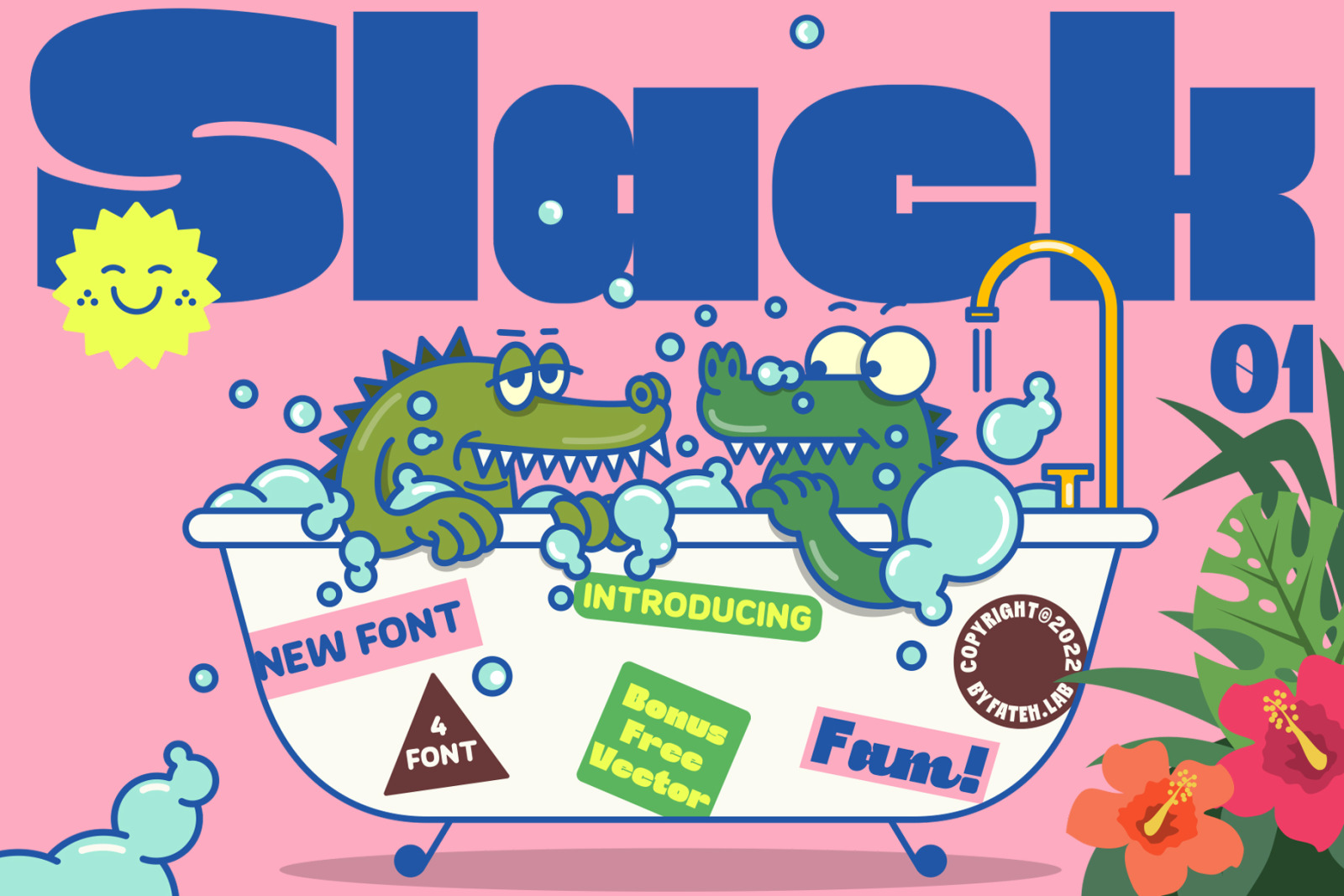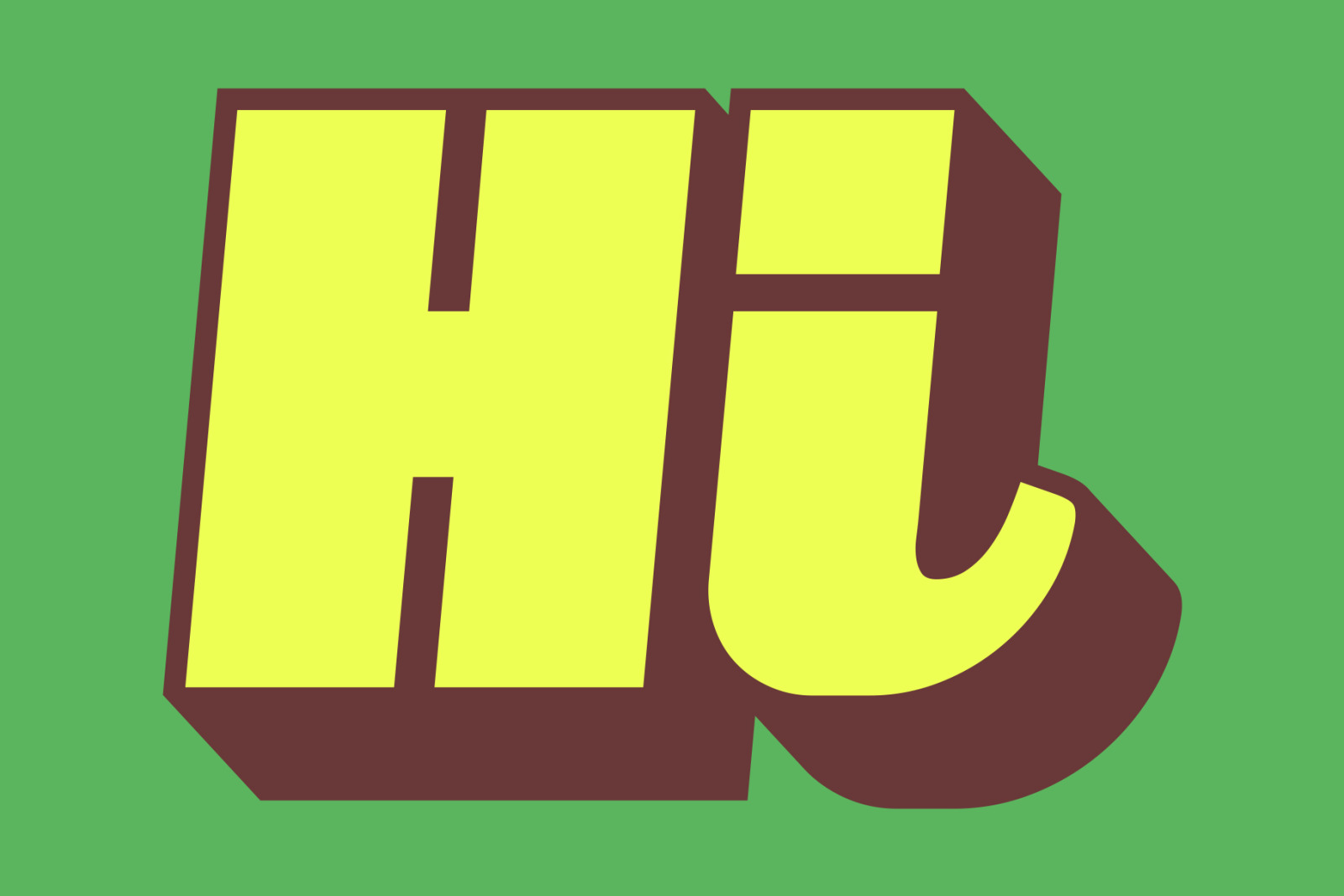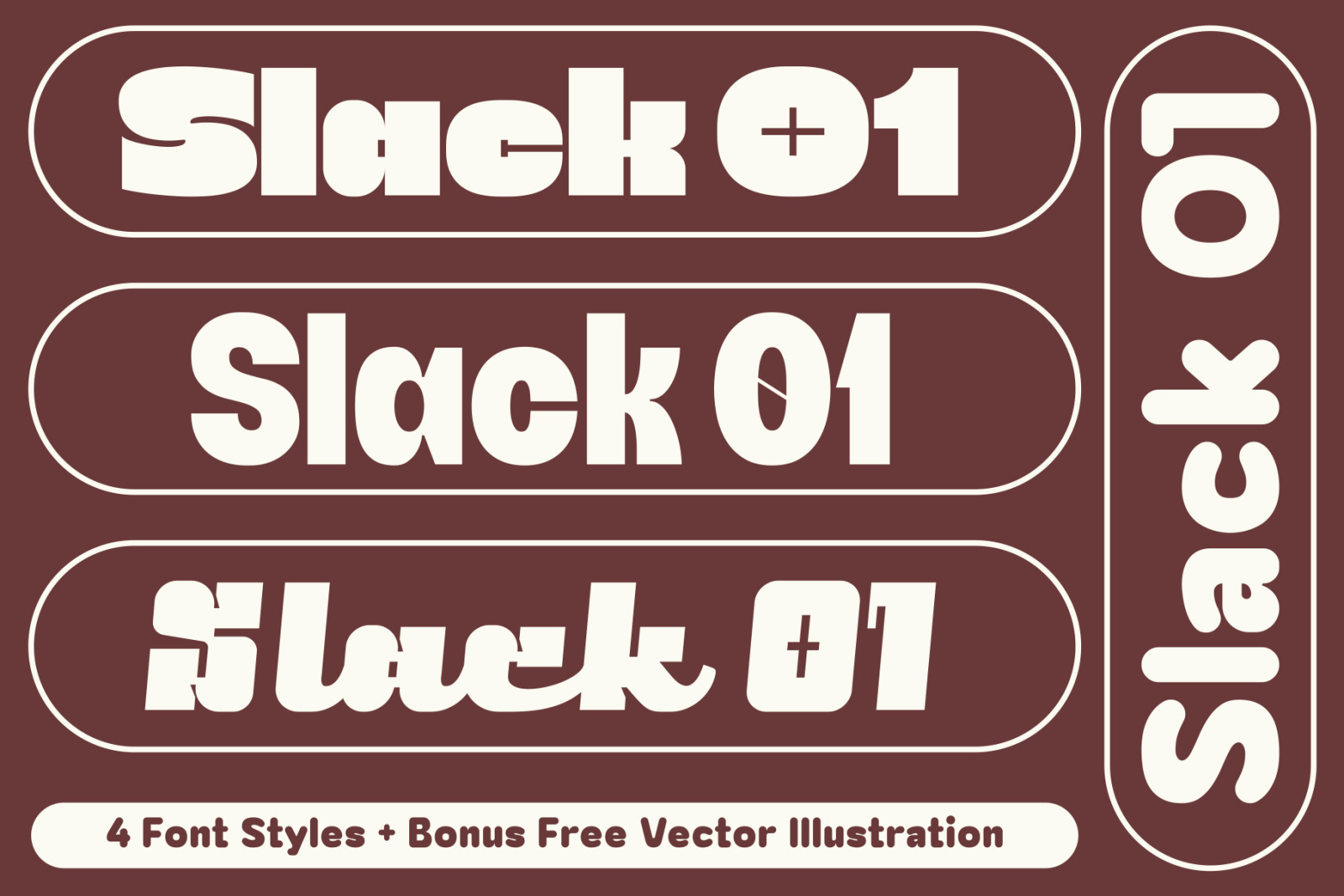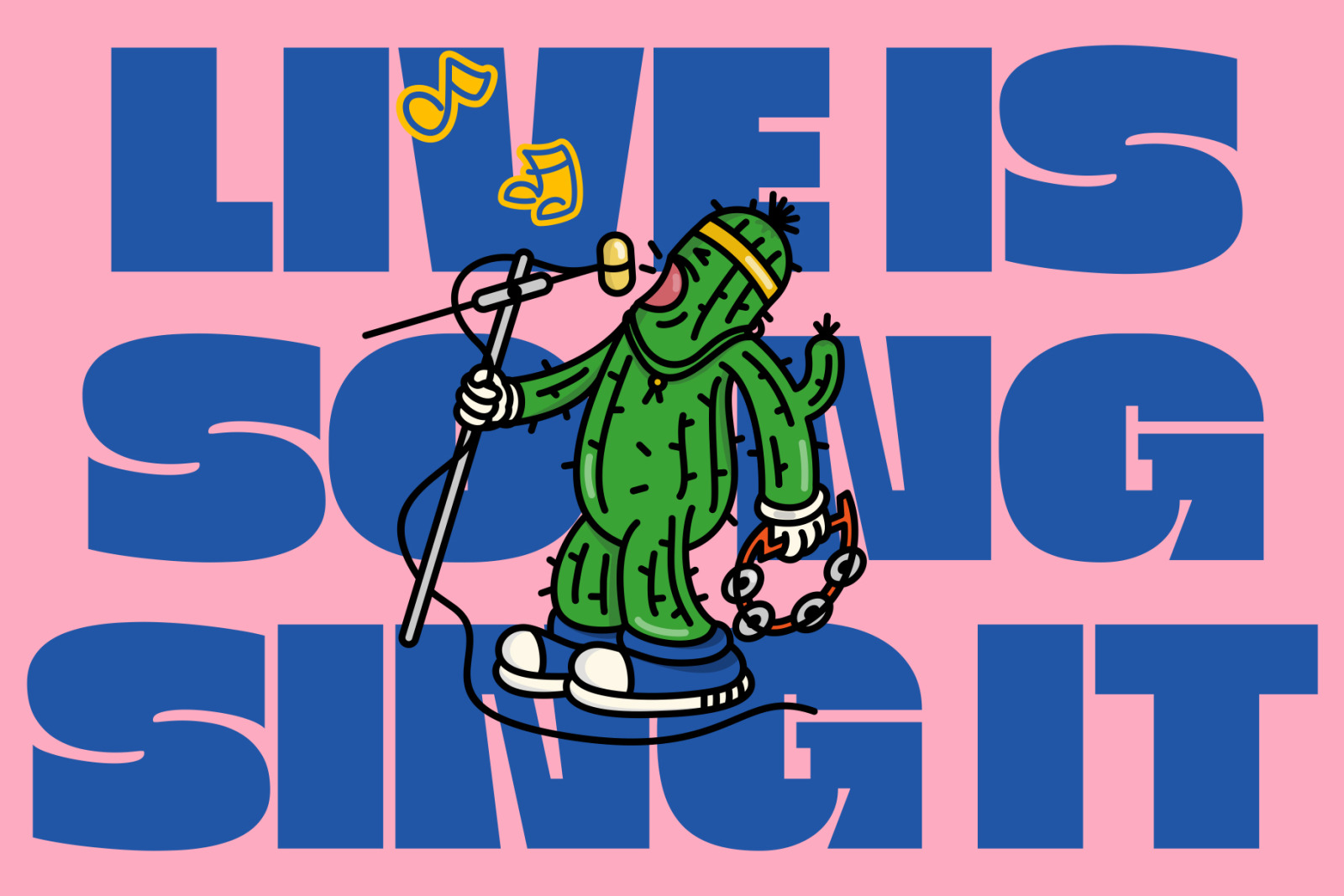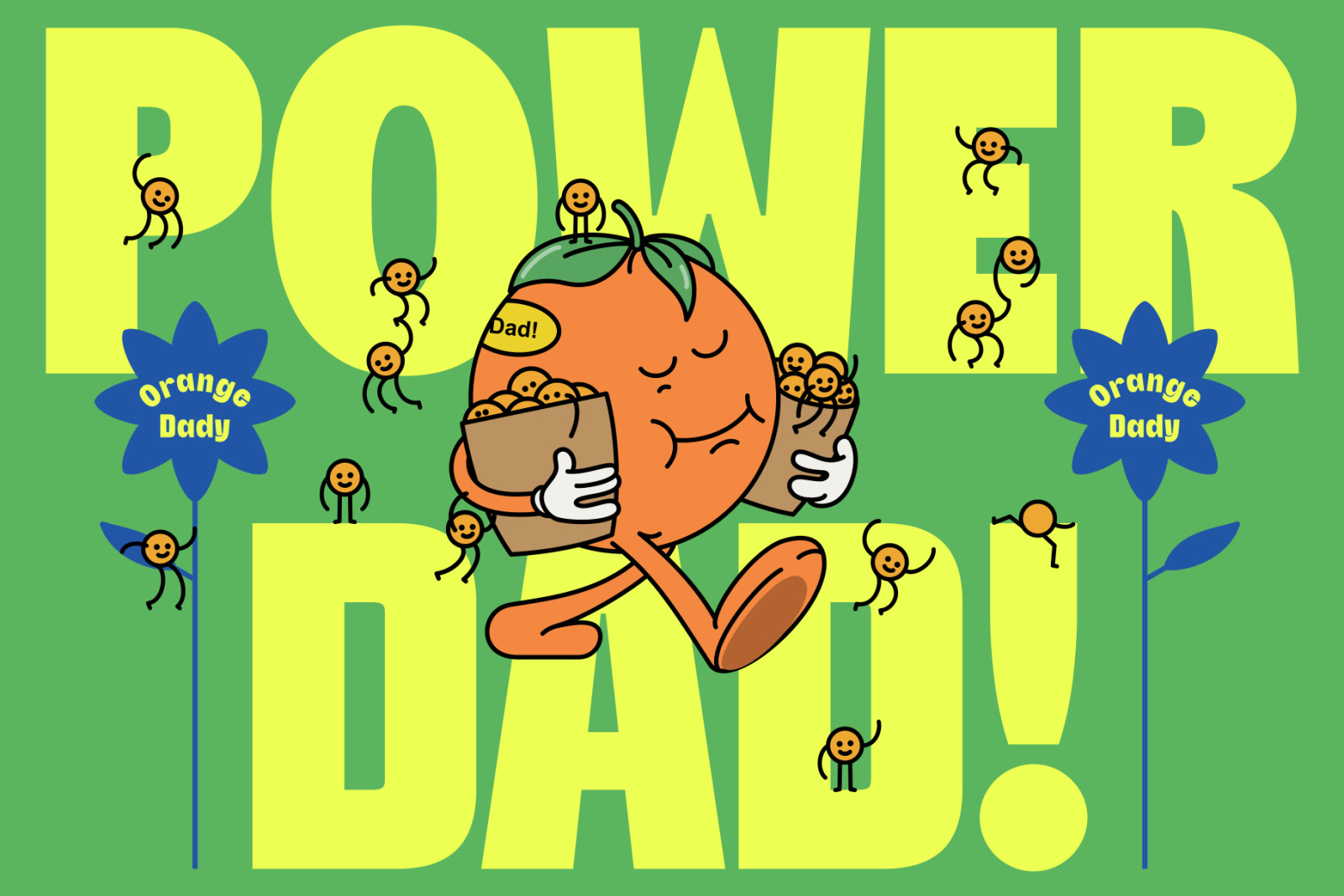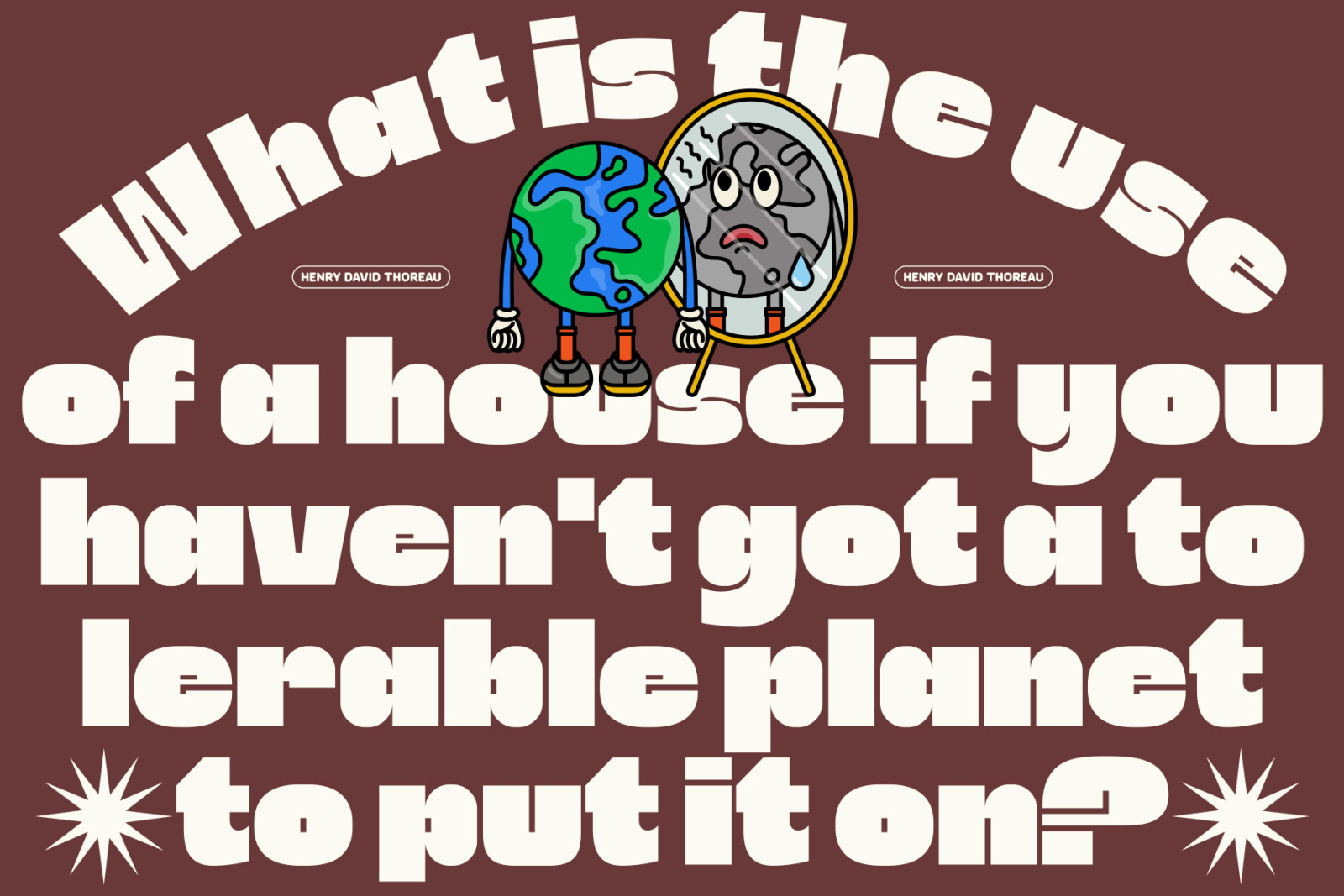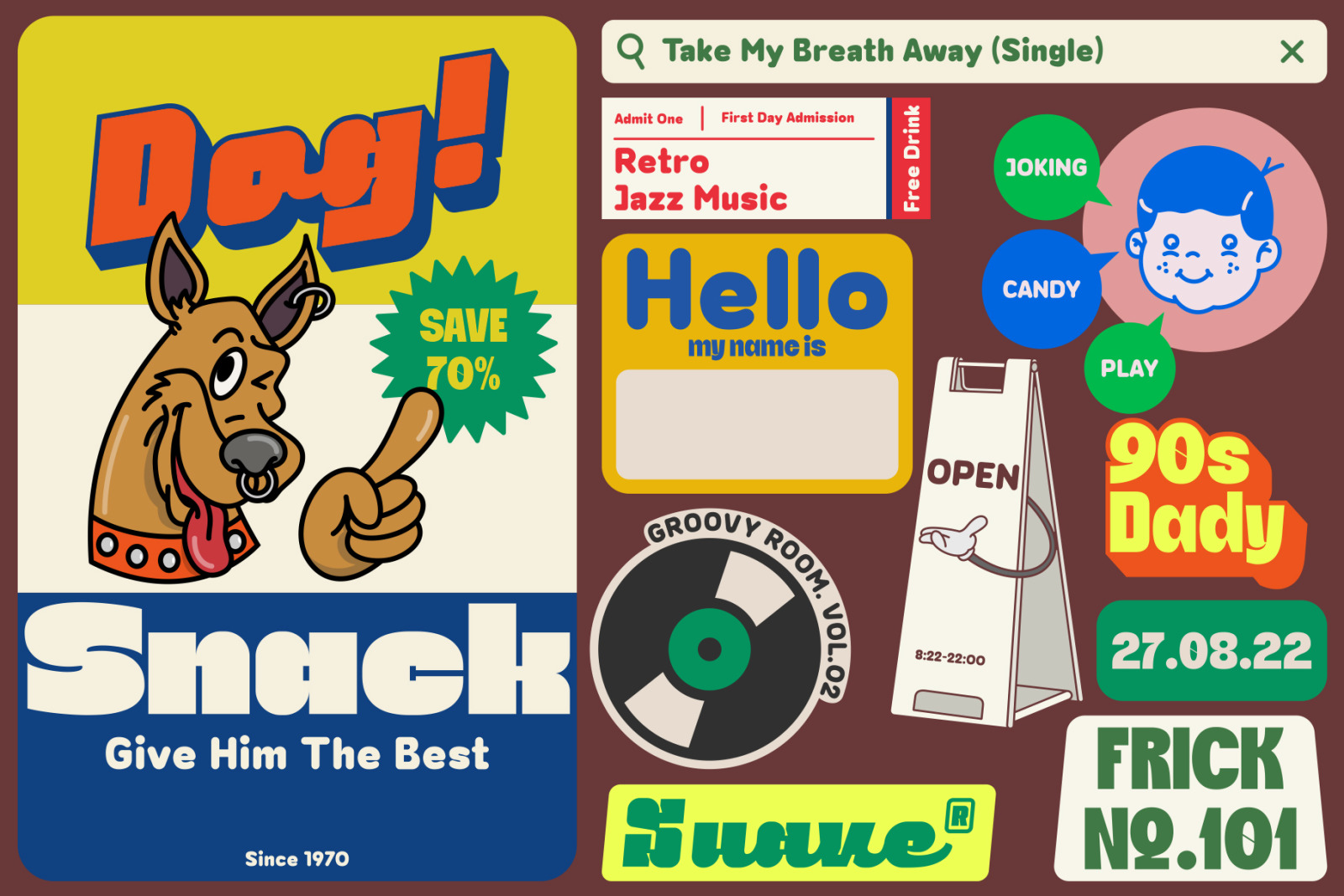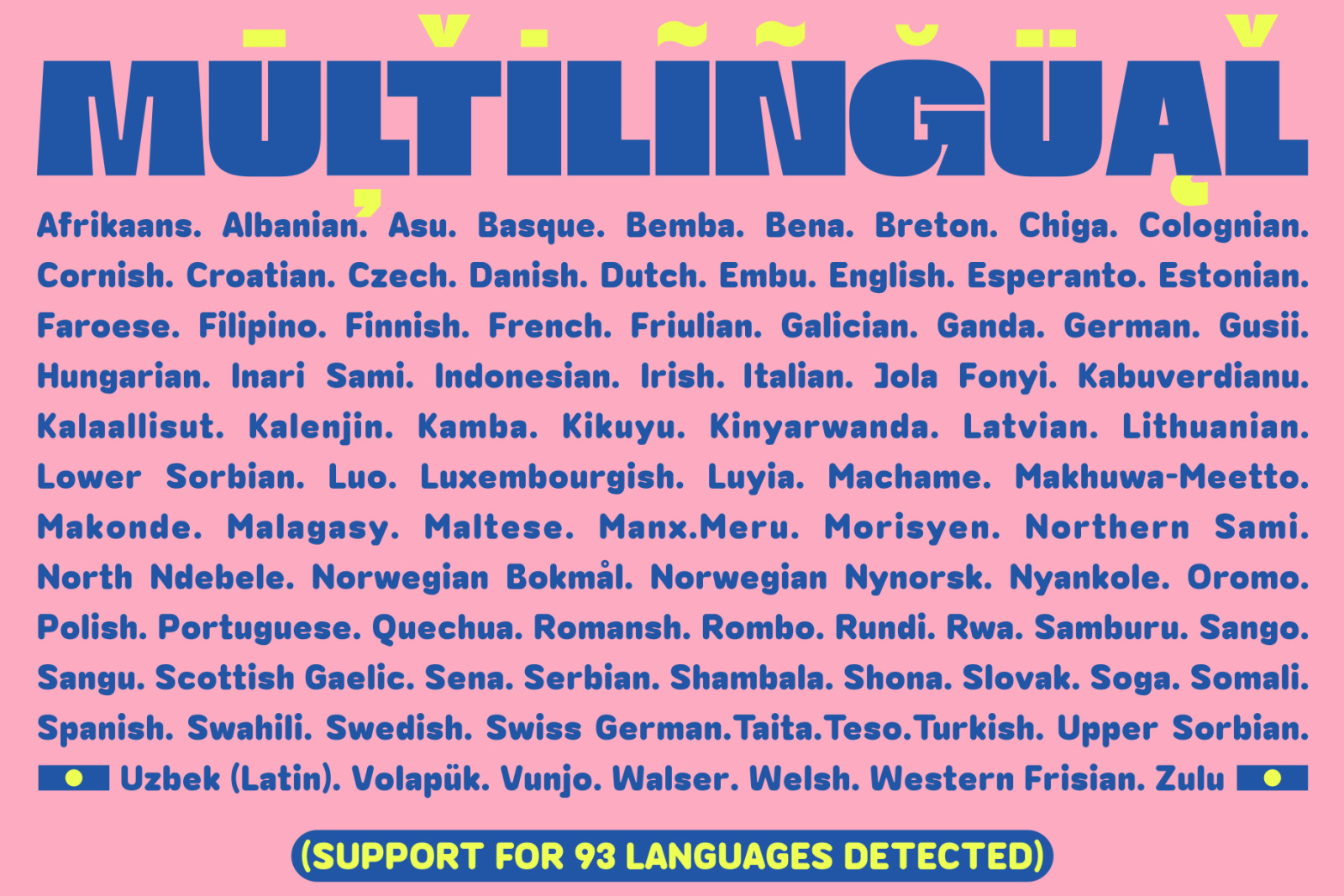
Slack | Cheerful Sans Serif Font
Hello, Introducing our newest font Slack 01, Slack 01 has a character with a fun, happy, colorful, and very modern style, this is good news for those of you who are thinking of ideas and making something great, and Slack 01 is the answer for that all, with vector illustration support that you will get for free, so what are you waiting for, get Slack 01 right away